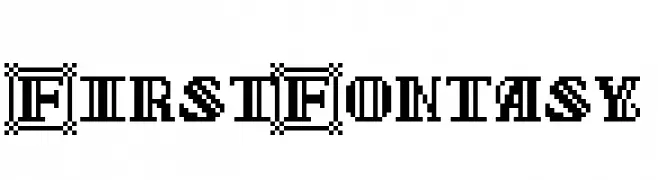
A futuristic, geometric font with a digital, pixelated aesthetic.
A vintage, distressed typewriter-style font with irregular edges and a handcrafted feel.
A dynamic and playful font with stretched, elongated characters.
A decorative serif font with artistic, hand-drawn embellishments.
A bold, hand-drawn font with a playful and rustic style.
A playful, handwritten font with bold, dynamic strokes and a whimsical aesthetic.
A playful and modern font with geometric shapes and smooth curves.
A bold, geometric font with rounded, blocky characters for a modern look.
A bold, futuristic font with a 3D effect and dotted interior pattern.
A decorative serif font with ornate detailing and playful curves.
A bold, geometric font with outlined, three-dimensional letters.
A bold, geometric stencil-style font with distinct cutouts.
A playful, handwritten-style font with a casual and dynamic feel.
A bold, playful handwritten font with a chunky, informal style.
A bold, graffiti-inspired font with a dynamic and playful style.
A bold, playful font with a cartoonish, dynamic style and thick outlines.
A bold, decorative font with a 3D effect created by diagonal lines.
A pixelated, retro-style font with a blocky, digital appearance.
A bold, decorative font with a playful, vintage flair.
A bold, geometric font with striped patterns and a modern, playful style.
A bold, geometric font with angular shapes and a digital aesthetic.
A futuristic, geometric font with a bold, digital aesthetic.
A bold, angular font with a futuristic and geometric design.
A playful, casual handwritten font with dynamic strokes and an informal charm.
A bold, rounded font with a playful, interconnected design.
A bold, pixelated font with a modern, digital aesthetic.
A distressed, hand-drawn font with a vintage and rustic feel.
A bold, geometric display typeface with a modern and edgy style.
A bold, geometric font with a blocky and modern design.
A bold, electrified font with a distressed, dynamic style.
A bold, decorative font with a strong outline and retro flair.